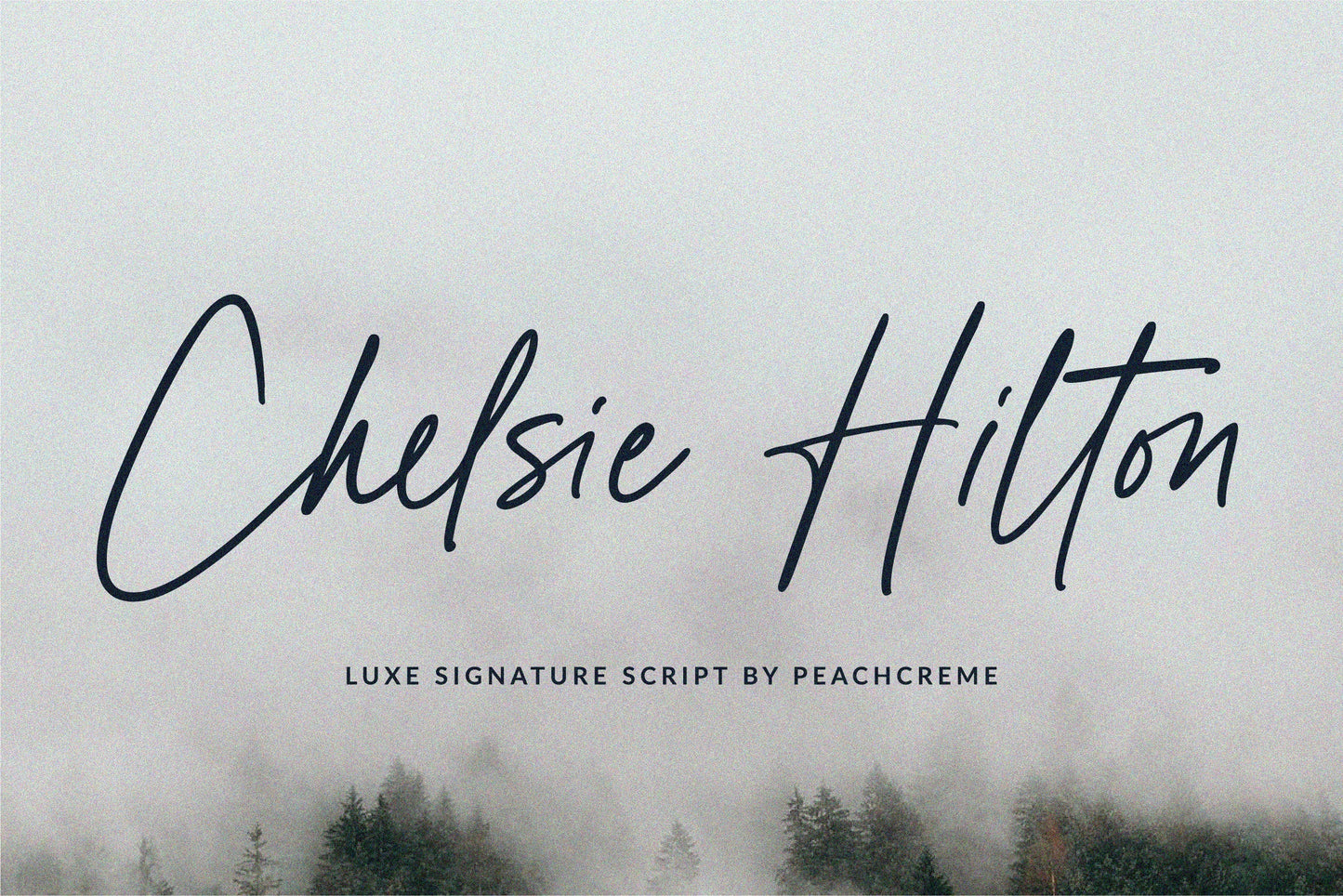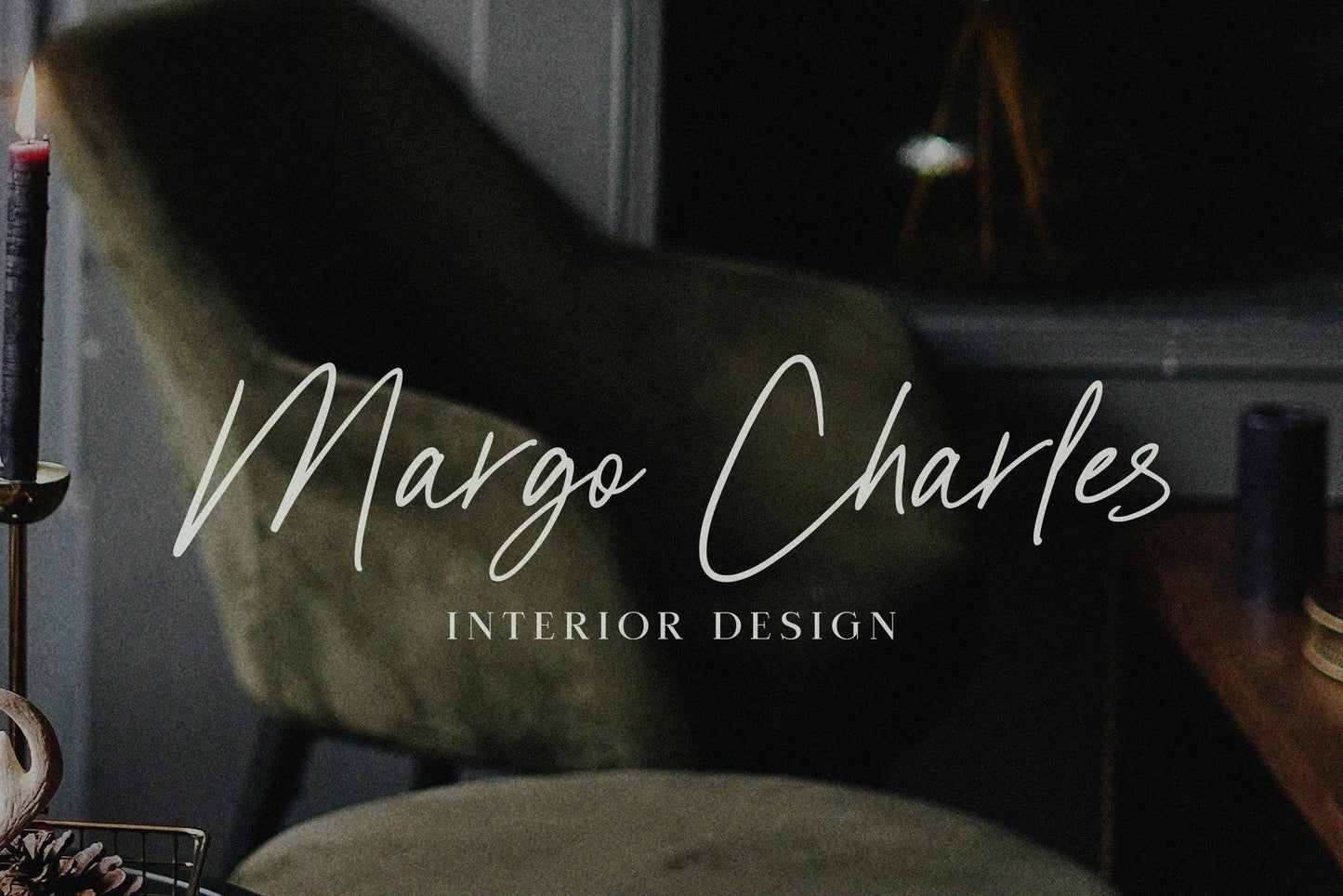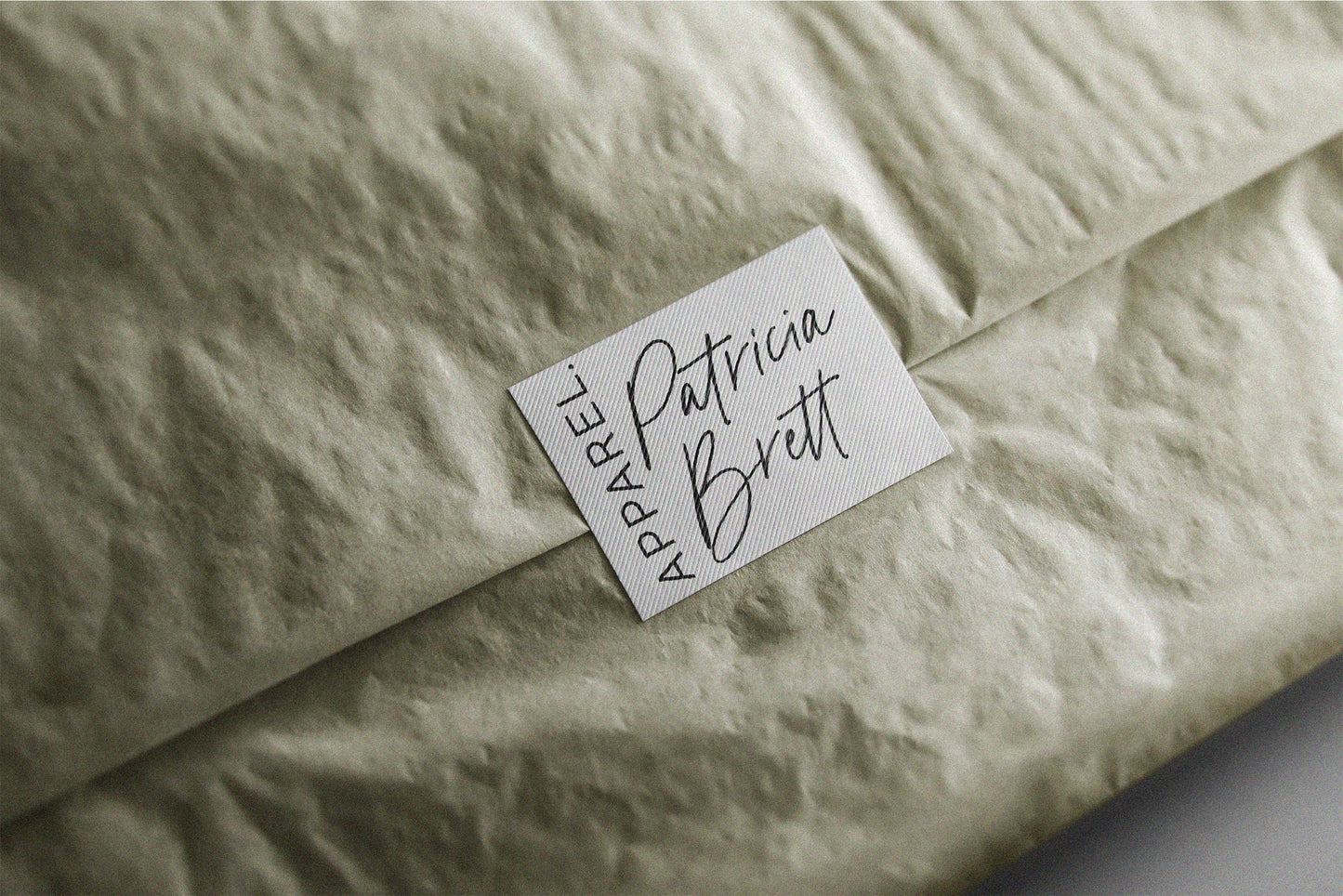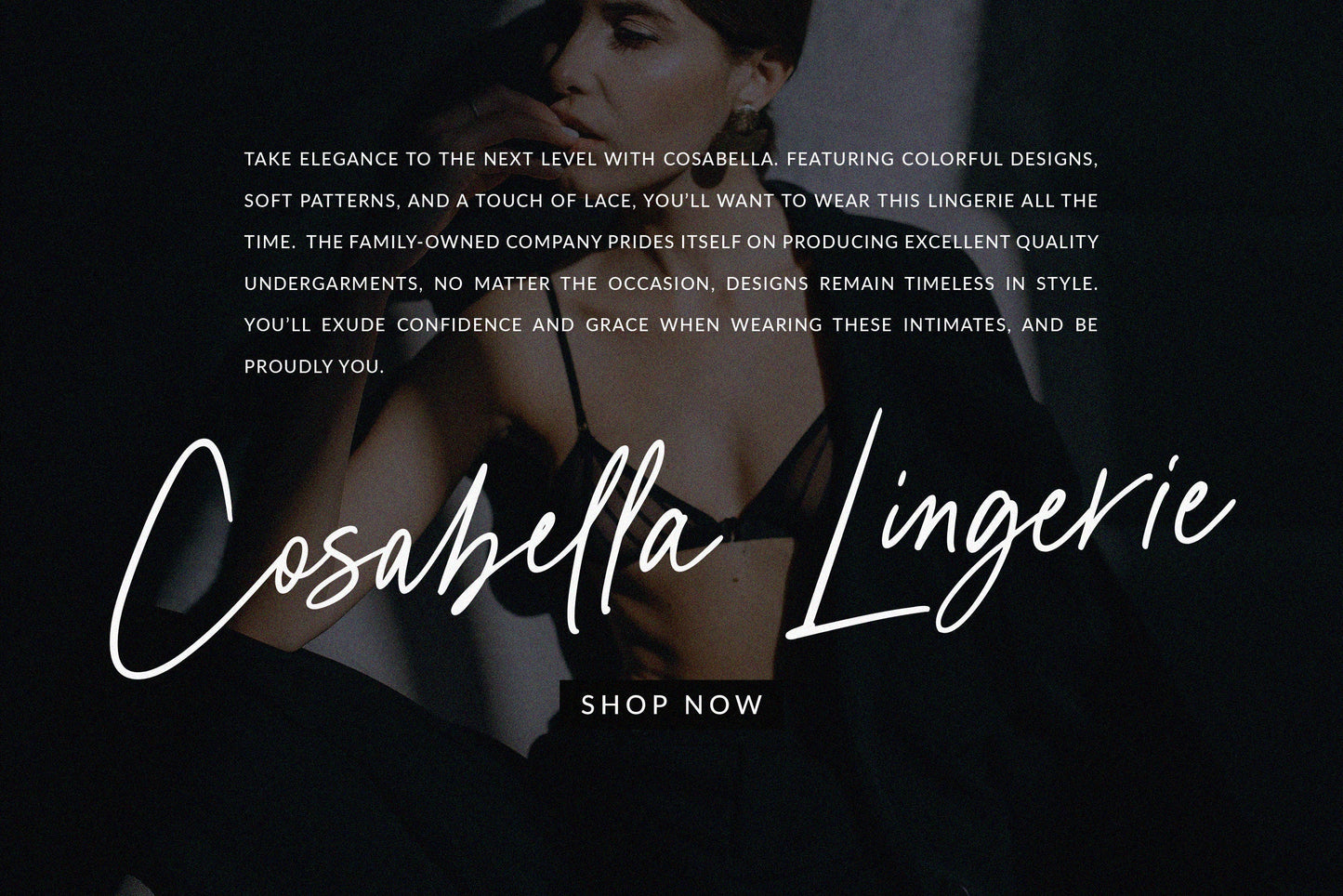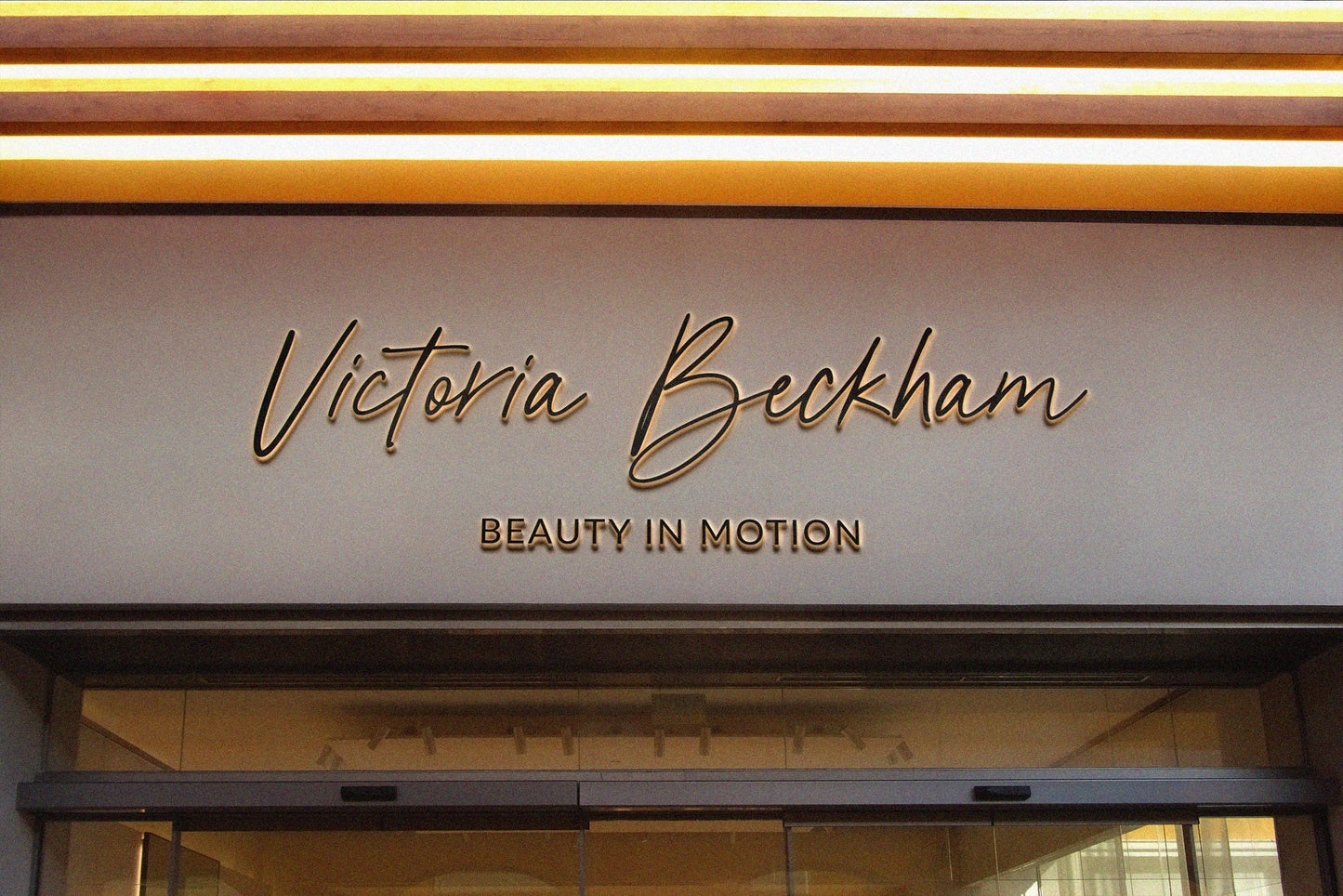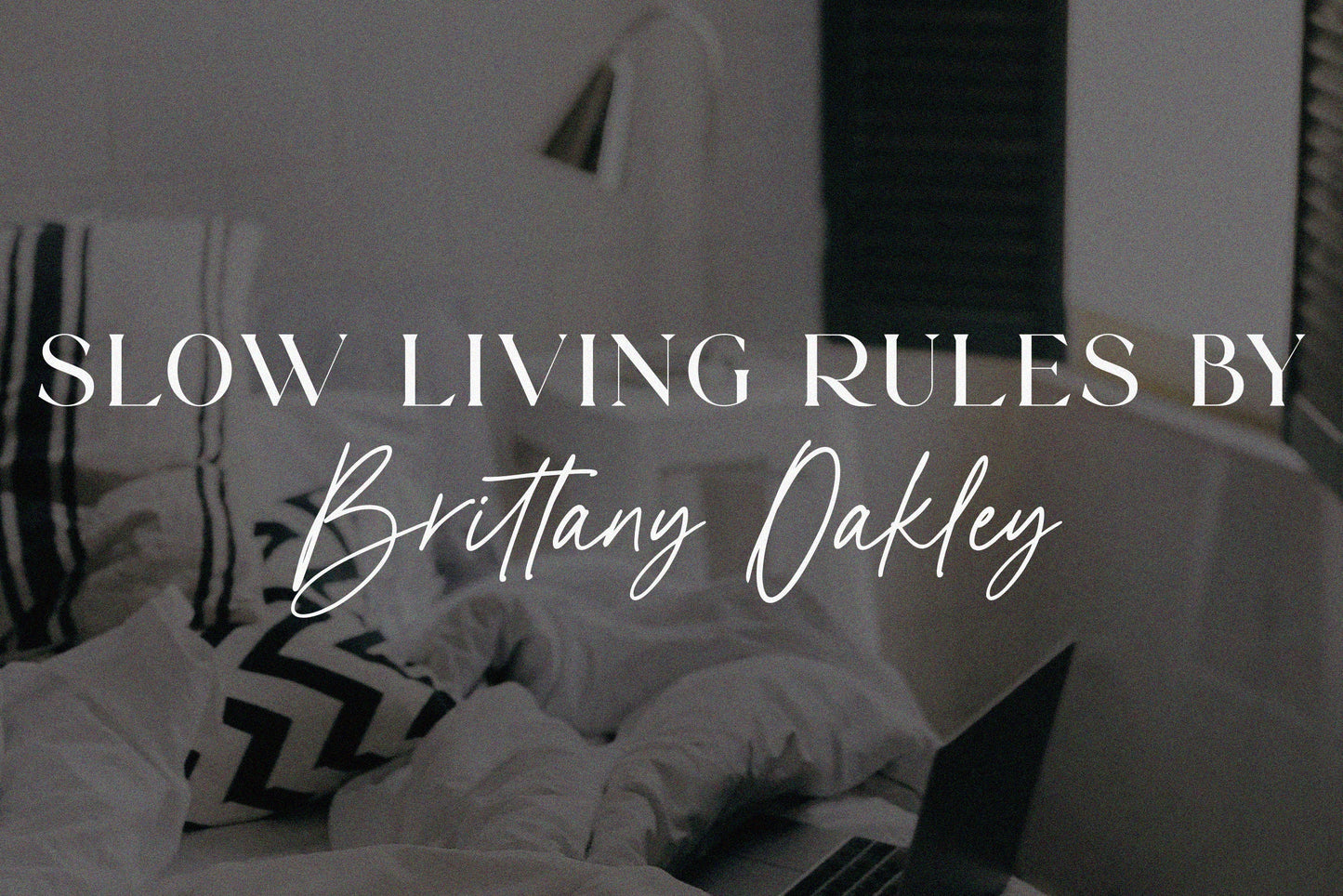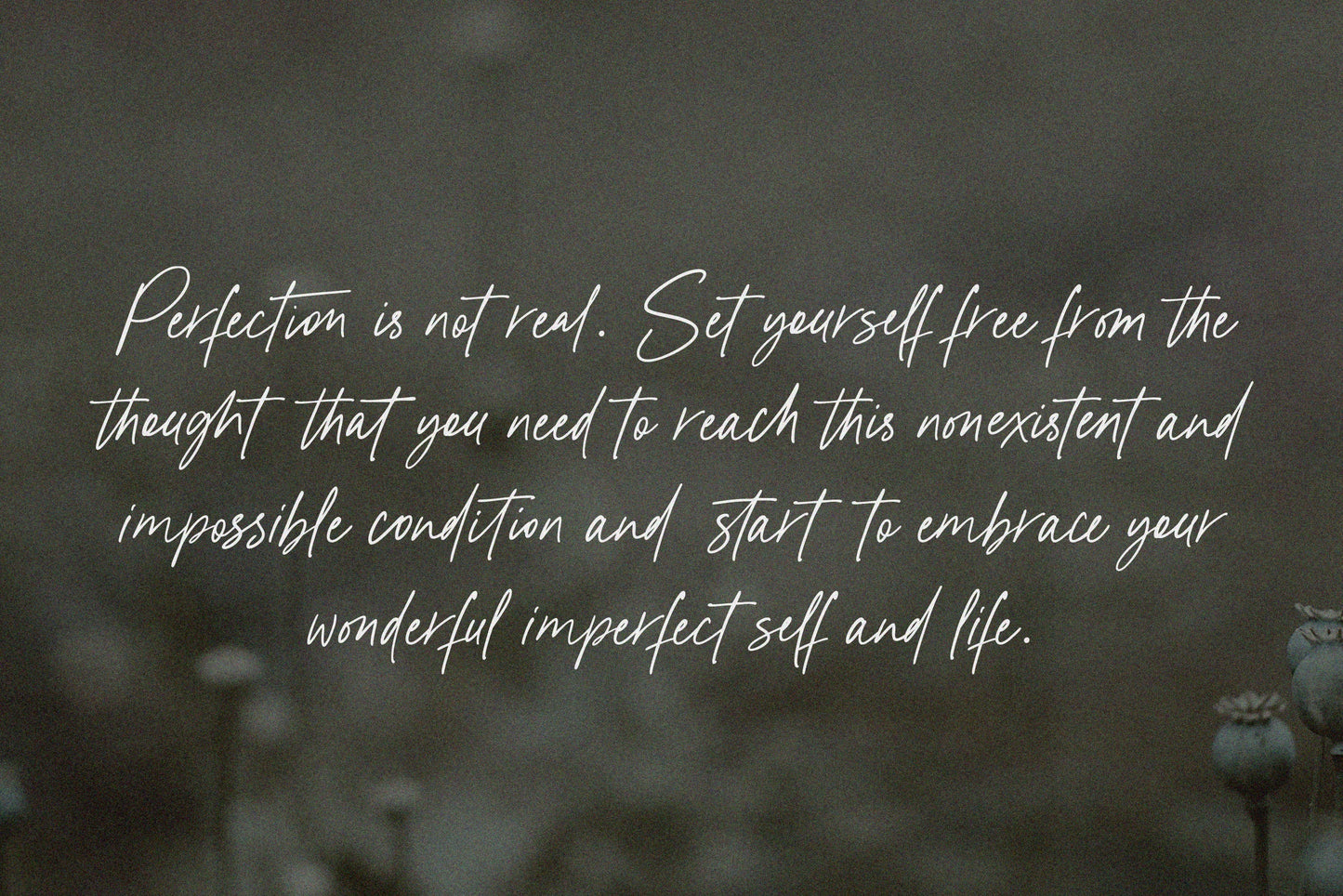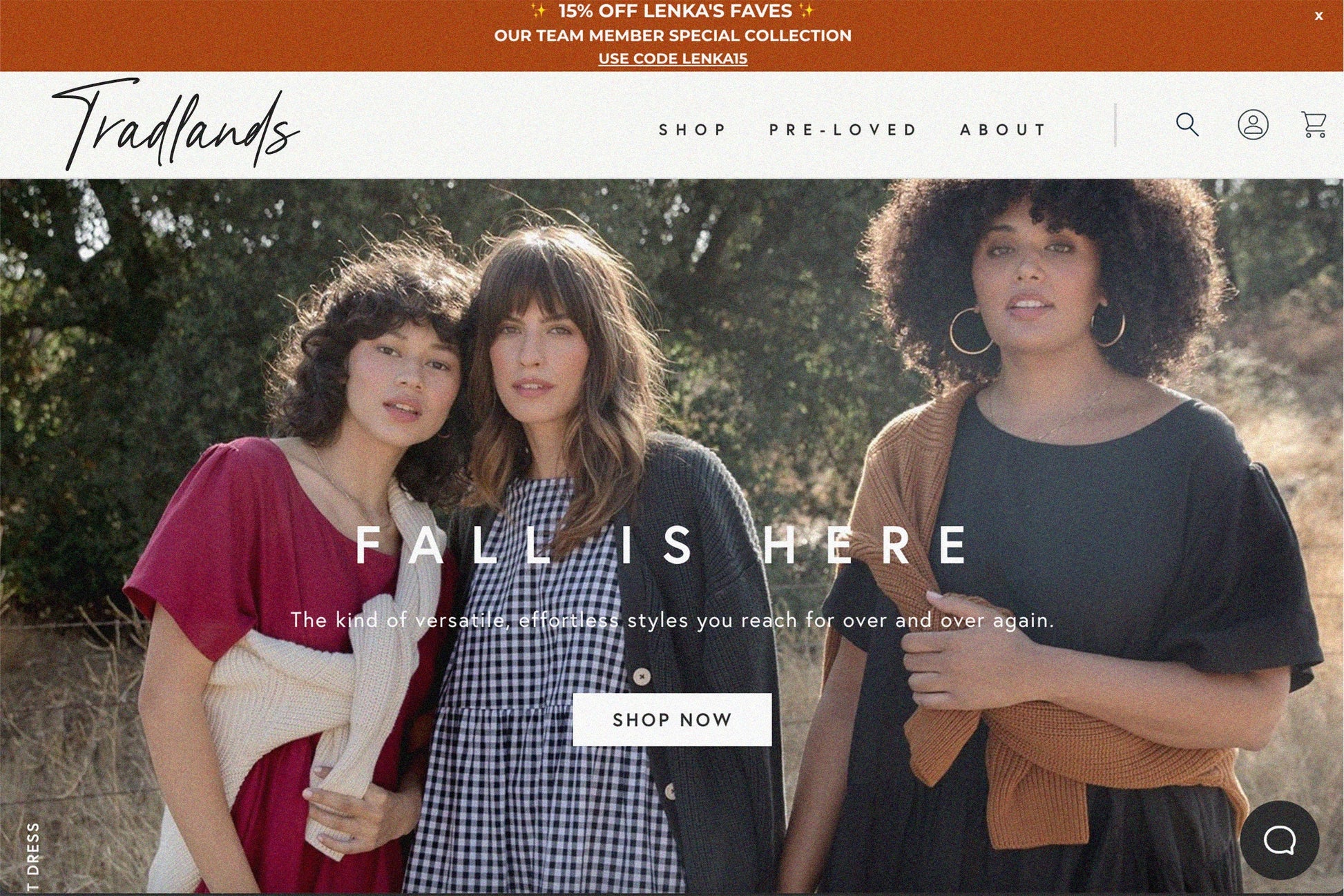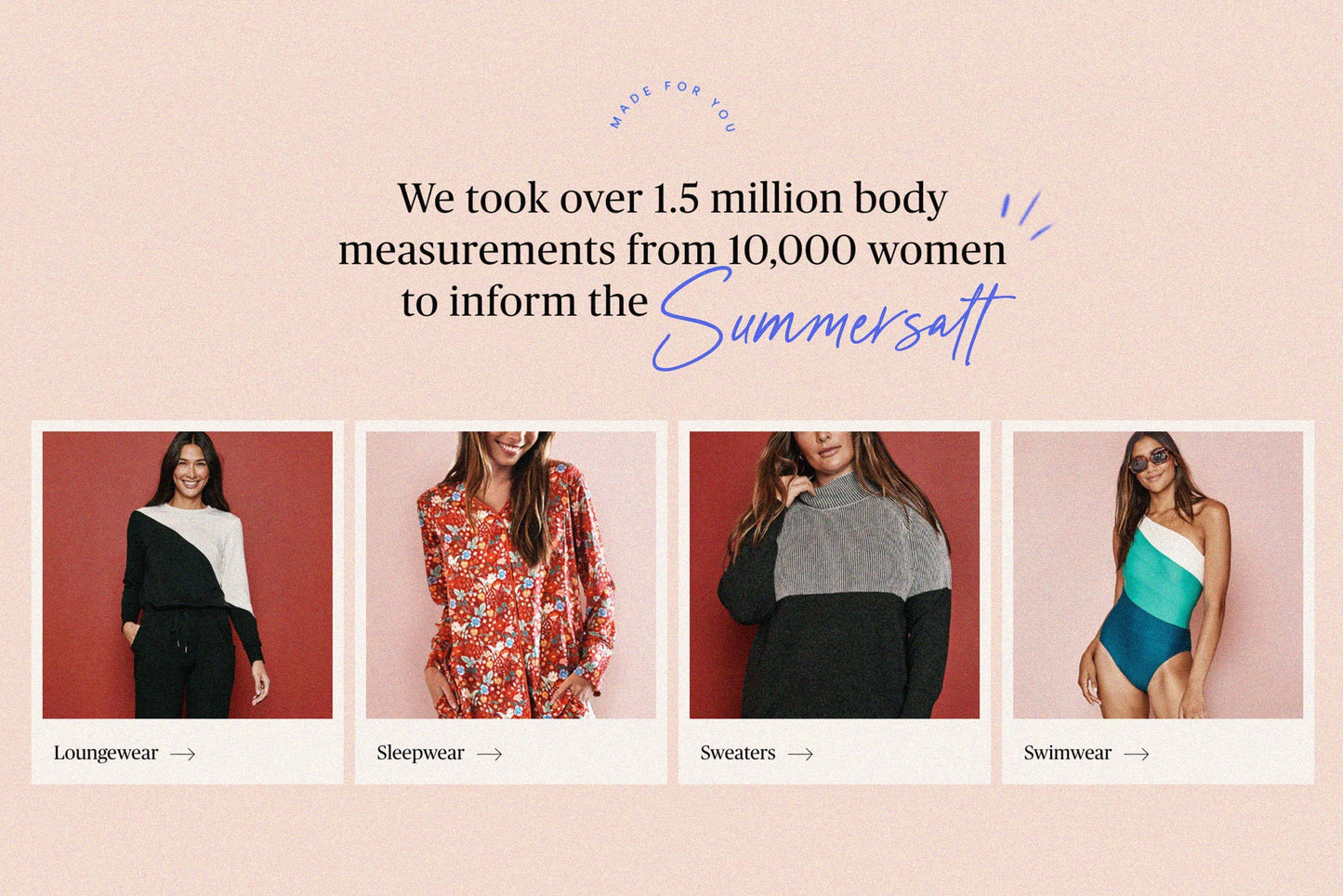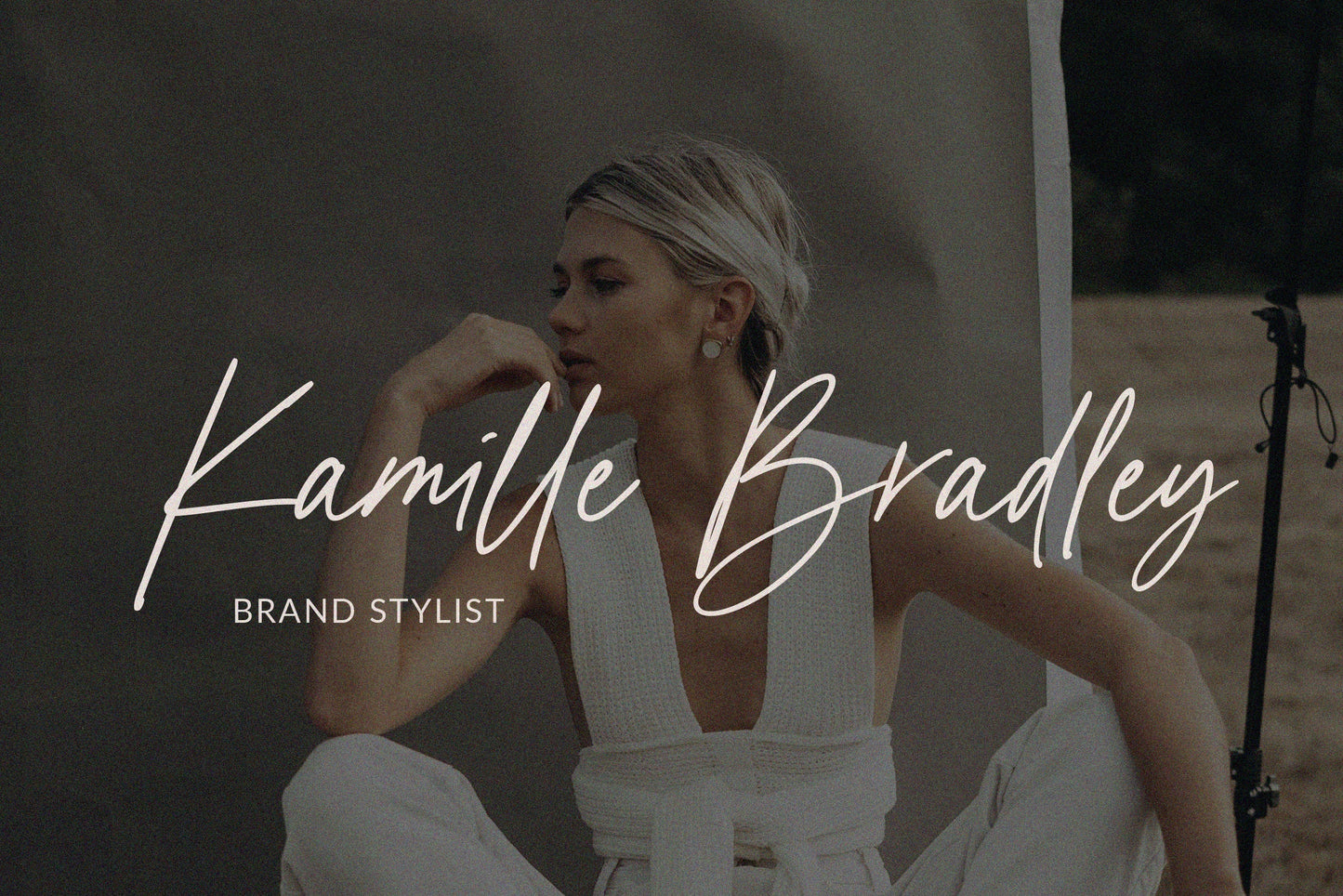
Chelsie Hilton // Luxe Signature Font
We're excited to present to you our new font, "Chelsie Hilton"! A great thing about this font is that it is both chic and legible at the same time. You can confidently use it on such machines as Cricut since its edges are smooth enough and this font will fit just right. When creating this signature font, we took care to make it as crisp and modern as possible. Featuring 56 gorgeous ligatures, this font will give your designs a realistic touch. "Chelsie Hilton" is perfect for logos, wedding designs, quotes, cards, stationery, signature, display text, and many more.